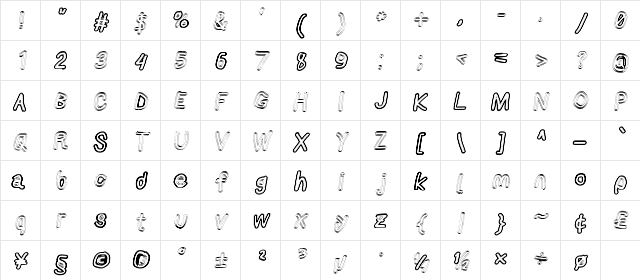
Complete AppleStorm XbdFaxIta glyph index. Displaying only characters natively supported by AppleStorm XbdFaxIta font.
AppleStorm is a composed and adaptable typeface that performs quietly and consistently across a wide range of design contexts. Its bold stroke weight gives it real presence on the page.